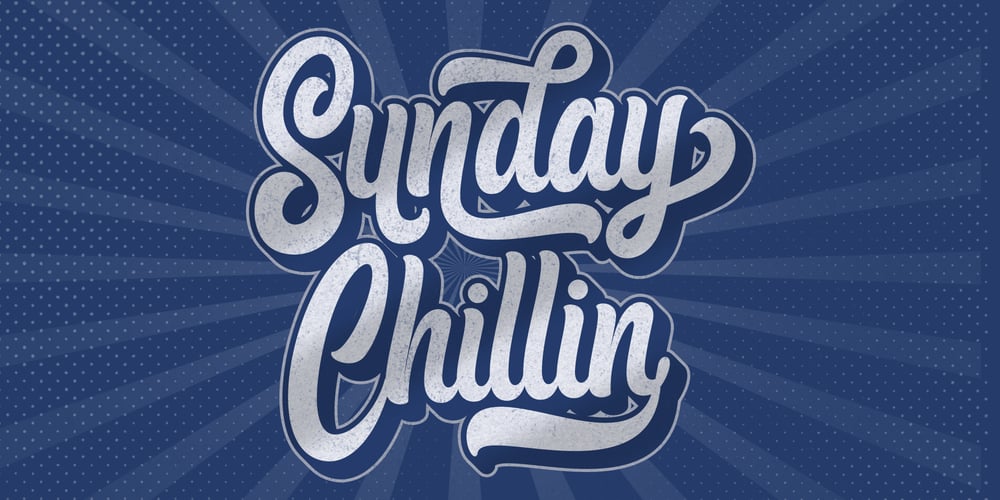
Sunday Chillin Font Family was designed by Hamber Perdiansyah and published by Hoperative Design. Sunday Chillin contains 1 styles and family package options. Sunday Chillin is a gorgeous and retro-styled script font crafted to add tons of stylish character to your designs. This font is PUA encoded, which means you can access all of the glyphs and swashes with ease!This font can be used for logos, branding, invitations, stationery, wedding designs, social media posts, and much more!Sunday Chillin Features : Ligature Kerning Uppercase and Lowercase Number and Punctuation Stylistic Alternates Stylistic set 01 Stylistic set 02 Stylistic set 03 Swash PUA encoded which means you can access all glyphs Multilingual Support Thanks,Hoperative Design